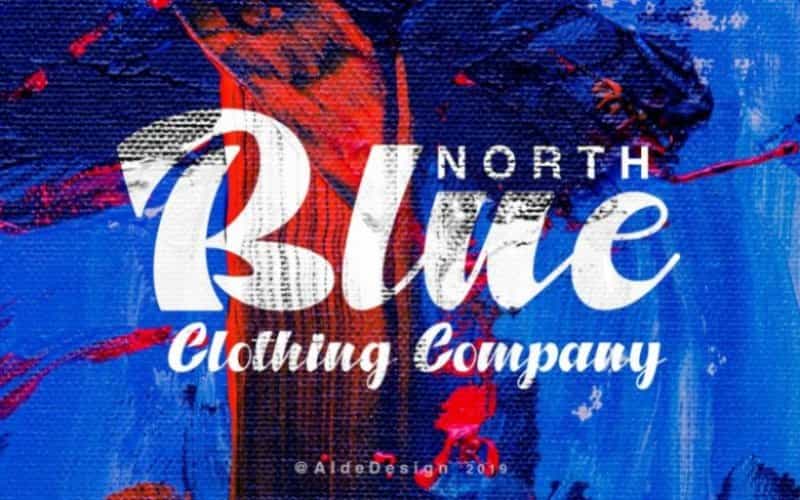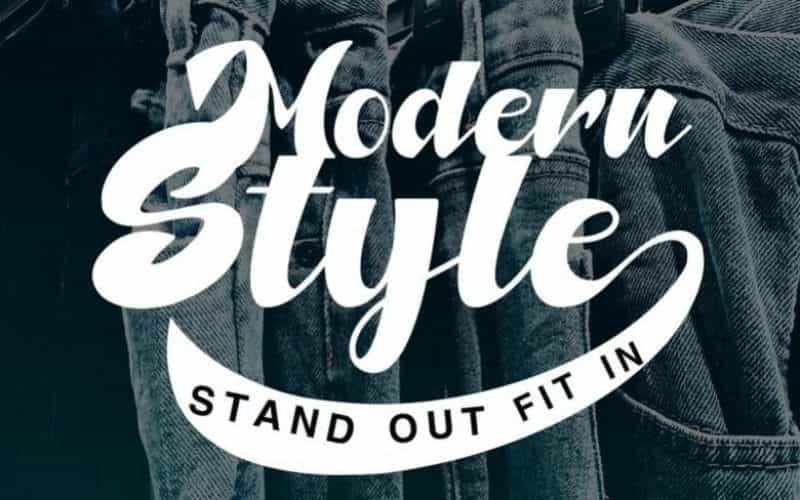
NORTH BLUE – STRONG BOLD SCRIPT FONT – A very trendy and funny new bold script. North Blue font was made to look as much as a readable script in the type as possible by adding over 100 ligatures, titling and swash.